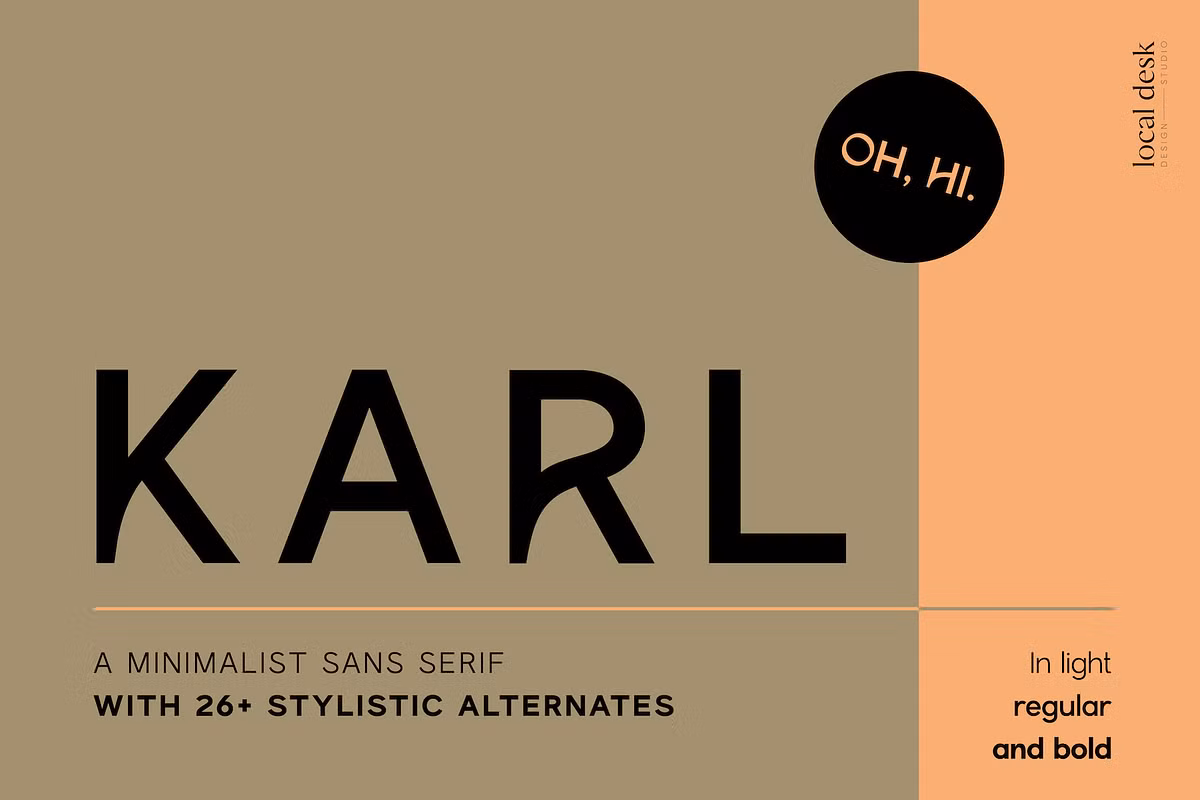
Karl is a customized, simplistic sans serif typeface with three weight options, ideal for rendering unique designs. The typeface is packed with 26 stylistic alternates, assisting you in creating polished, tailor-made, and professional designs effortlessly. Karl’s thoughtfully designed, though slightly irregular alternates, combined with its crisp main characters, provide your design project with the perfect balance, eliminating the need to hunt for the ideal font pair.
Karl font details
Designer: Local Desk Designstudio